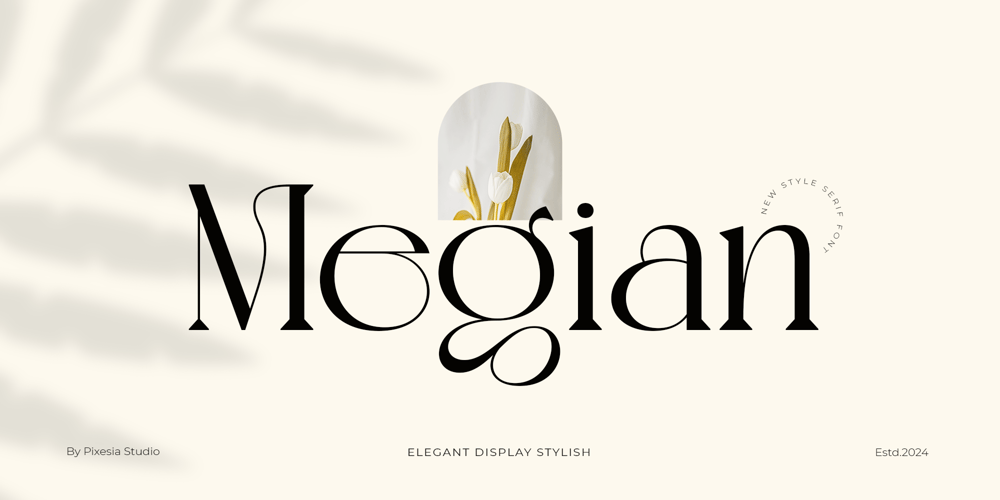
Megian Font Family was designed by Abul Almaududi and published by Pixesia Studio. Megian contains 1 styles and family package options. Introducing Megian – Modern Elegant Serif FontMegian is a a contemporary serif font that exudes sophistication and elegance. Its carefully crafted letterforms and graceful proportions add a touch of class to any project, making it a go-to choice for designers.Megian is perfectly suited for branding, logotypes, wedding invitations, romantic quotes, labels, social media posts, advertisements, product packaging, product designs, label, photography, watermark, invitation, stationery and any projects seeking premium quality and luxury and aesthetic feel.FEATURES- Stylistic Alternates- Ligatures- Uppercase and Lowercase letters- Numbering and Punctuations- Works on PC or Mac- Simple Installation- PUA Encoded Characters – Easily accessible without additional design software.- Support Adobe Illustrator, Adobe Photoshop, Adobe InDesign, also works on Microsoft Word- Multilingual Support for 89 languages including Afrikaans, Albanian, Basque, Catalan, Danish, Dutch, English, Estonian, Faroese, Filipino, Finnish, French, Galician, German, Icelandic, Indonesian, Irish, Italian, Malay, Norwegian Bokmål, Portuguese, Spanish, Swahili, Swedish, Zulu.Hope you Like it.Thanks.